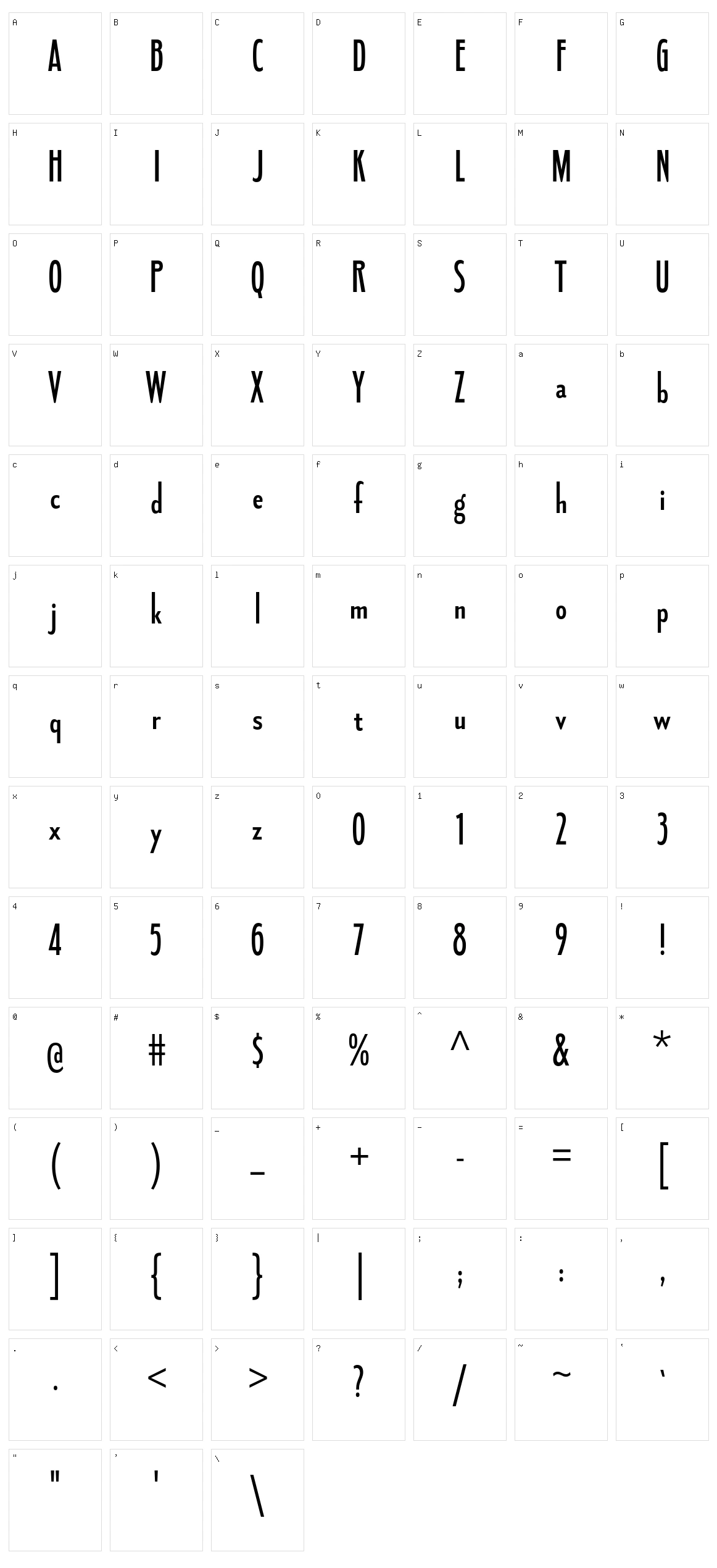
The free font Fledgling is carefully designed by Typodermic Fonts, showcasing a thoughtful balance of creativity and usability and falls under the Sans serif font style. When you download the ZIP file, it contains only 196.95 KB of font files, making it lightweight and quick to download. Please review the license details below to understand permitted usage and distribution rights. If license information is not available, we recommend using this font for personal projects only or contacting the author directly for commercial usage permissions.